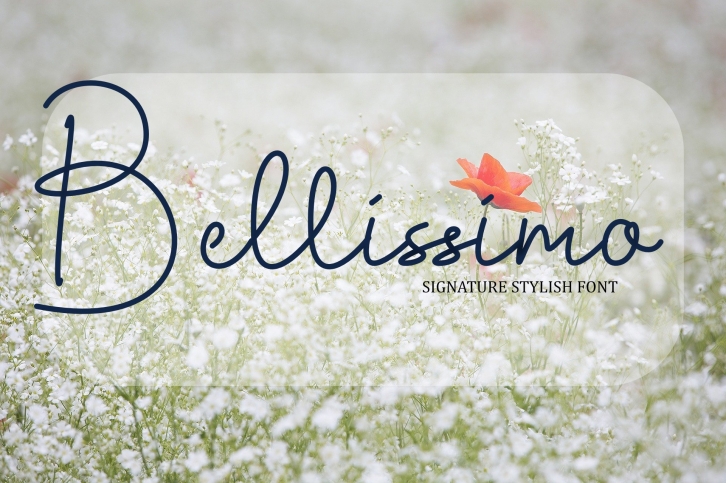
Bellissimo is a beautiful font that was designed by insanurbahagia. It's a great choice for designers and creatives who need such a font. It was released on November 7, 2020 and the file size is 18.85 MB. Bellissimo may give a more youthful, expressive and casual look to your project. It is a very beautiful, refined, elegant, and high-quality font.